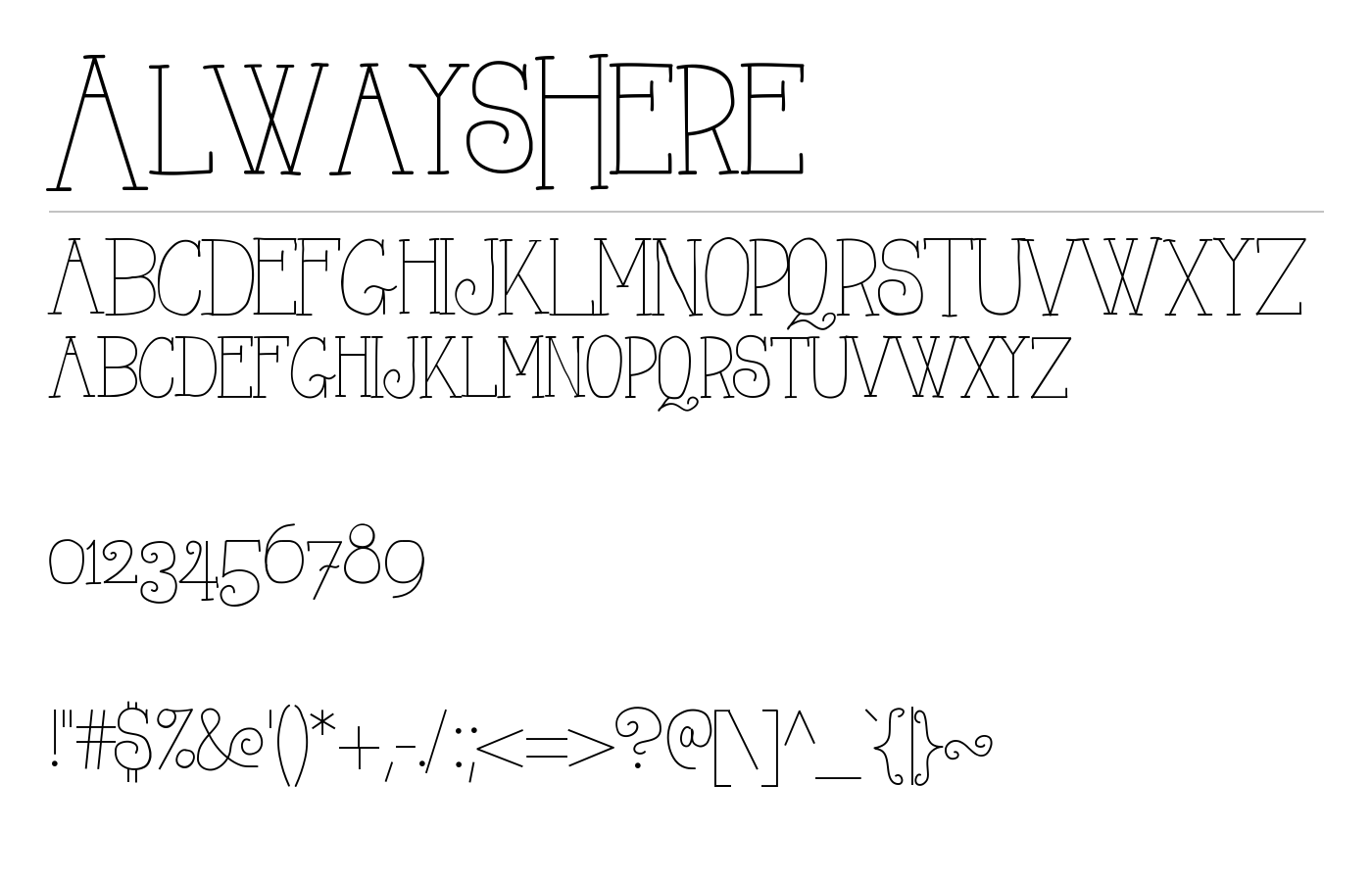
AlwaysHere is a delicate, thin-lined serif font with a quirky and whimsical personality, featuring tall, slender letterforms and playful curlicue details on select characters. Its light weight and airy spacing make it ideal for creative projects that need a unique, handcrafted feel, perfect for invitations, artistic branding, or elegant headlines where charm and individuality are key.
AlwaysHere Font
About AlwaysHere Font